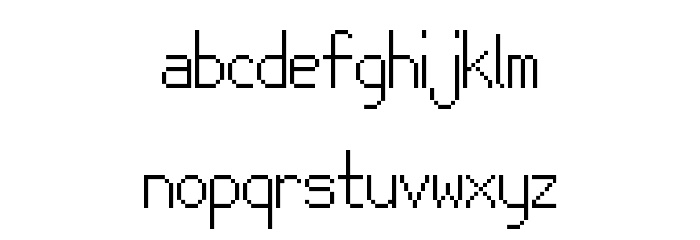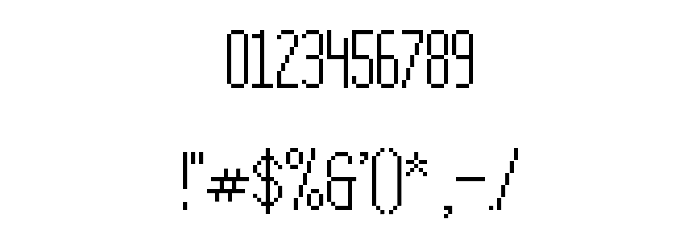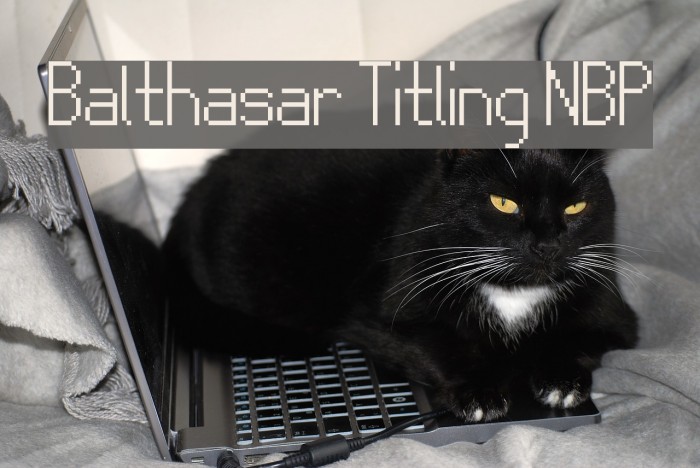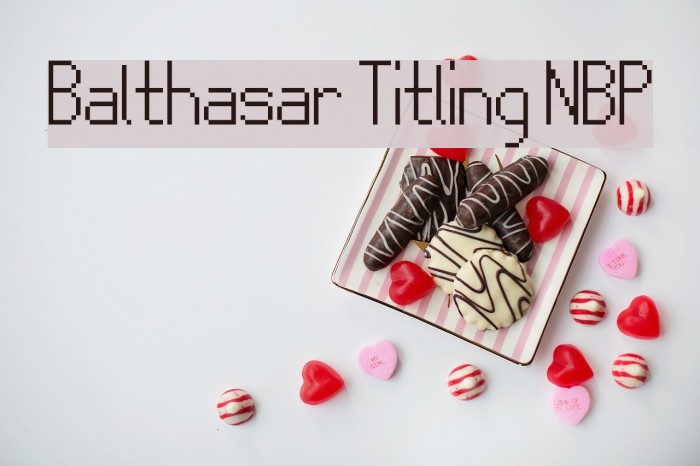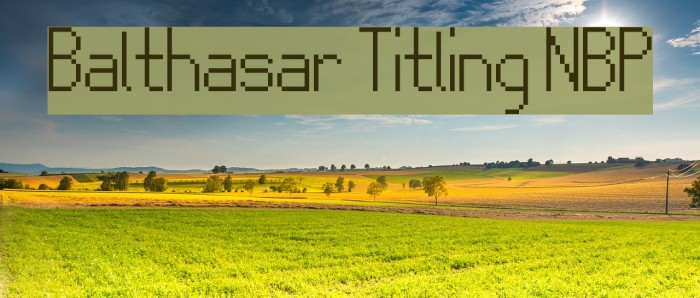
Balthasar Titling NBP Font
This font features a unique, pixelated style reminiscent of early digital displays. The characters are constructed with a grid-like precision, giving it a retro, tech-inspired aesthetic. The uppercase and lowercase letters maintain a consistent height, contributing to a uniform appearance. The numerals and special characters are designed with the same pixelated approach, ensuring cohesion across all glyphs. This font's distinct style makes it stand out, offering a nostalgic nod to vintage computing while maintaining readability.
A pixelated, retro-style font inspired by early digital displays.
- Proposed Projects: Ideal for projects that require a retro or tech-inspired look, such as video game design, digital art, or tech-themed branding.
- Overall Style: Vintage
- Use Case: Logos, Headlines, Digital Art